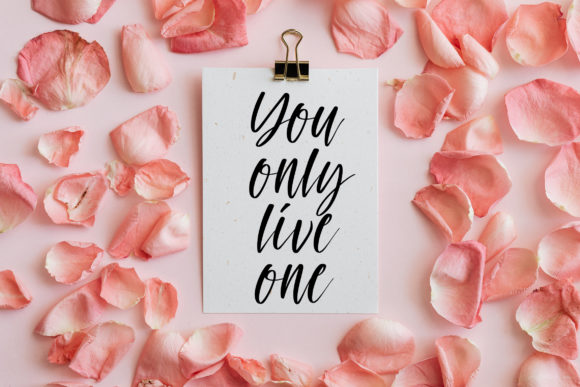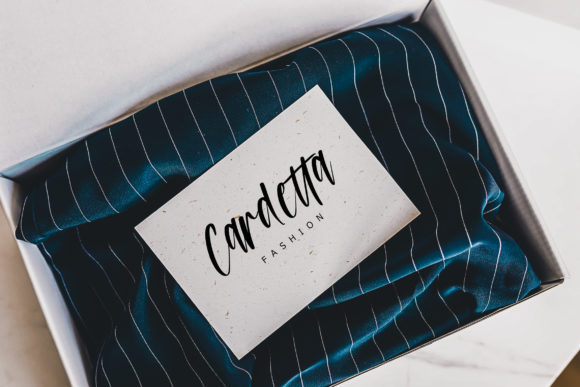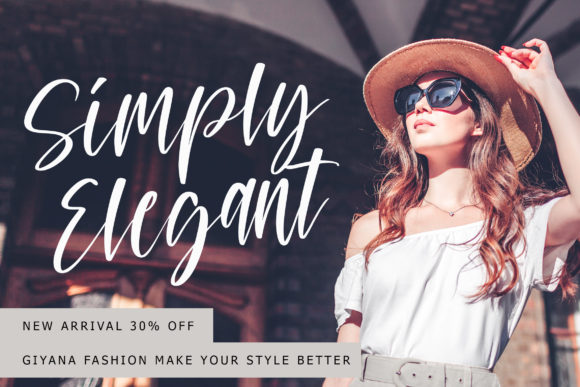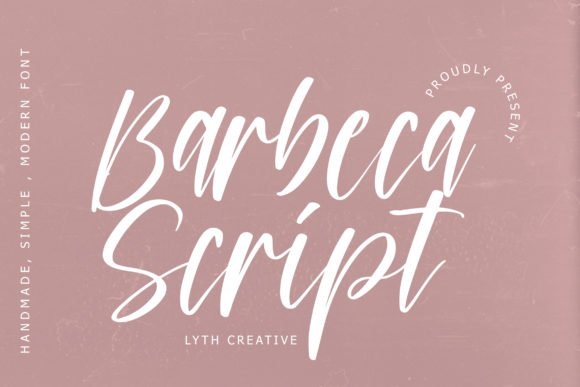
The Perfect Script: Unlocking the Magic of Barbeca Font
Have you ever stared at a blank page, struggling to find the right words to express your creative vision? That’s where the magic of typography comes in – a well-chosen font can make all the difference. For designers, the search for the perfect script is a constant quest, and I’m excited to share with you a game-changer: the Barbeca Font.
This modern handwritten font is a masterclass in elegance and luxury, perfect for making your text shine. Whether you’re working on branding projects, wedding designs, or social media posts, Barbeca Font is sure to elevate your work to the next level. Its versatility and sophistication make it a valuable addition to any designer’s toolkit, and I’m excited to dive deeper into what makes it so special.
- Unique Characteristics: Barbeca Font features a unique blend of modern and vintage elements, with bold lines and geometric shapes.
- Font Style: The font is available in a single style, but it can be used for both headings and body text.
Designer Review: Barbeca Font
Overall, I think the Barbeca Font is an interesting and unique addition to any design project. ✨ One of the things I like about it is its modern and sophisticated feel, making it perfect for luxury or high-end branding.
Here are some of the strengths of the font: ✨
- Its unique letterforms add a touch of elegance to any design project
- It’s versatile and can be used for both headings and body text
- It has a wide range of language support, making it suitable for global brands
- It’s available in several weights and styles, giving designers plenty of options for customizing their designs
However, I do think there are a few limitations to consider: ⚠️
- The font may be too ornate for some design projects, making it harder to read at smaller sizes
- It may not be the best choice for body text, as it can be quite dense and overwhelming
- It’s not particularly suitable for digital displays, where readability is crucial
Overall, I think the Barbeca Font is a solid choice for designers looking to add a touch of sophistication to their projects. While it may have some limitations, its unique style and versatility make it a great addition to any design arsenal.
Tips for Getting the Most Out of Barbeca Font
For the best results, use the Barbeca font for titles and headings, as it is a bold and eye-catching font.
Pair the Barbeca font with a clean and simple font for body text to create a visually appealing design.
The Barbeca font is ideal for:
Captions and titles for social media graphics
Restaurant or food-related branding
Advertising and marketing materials